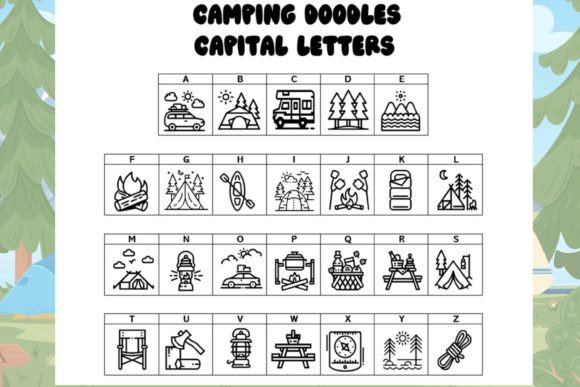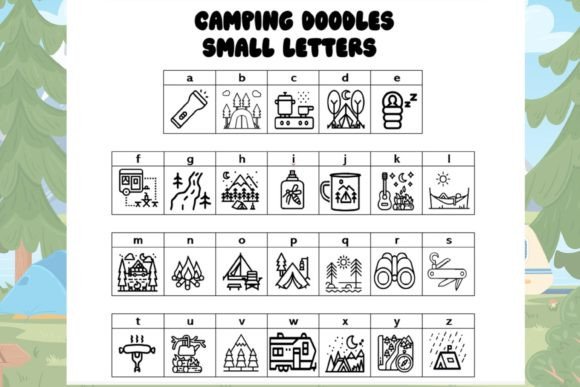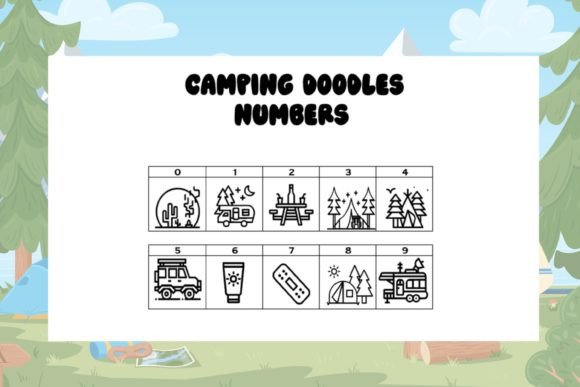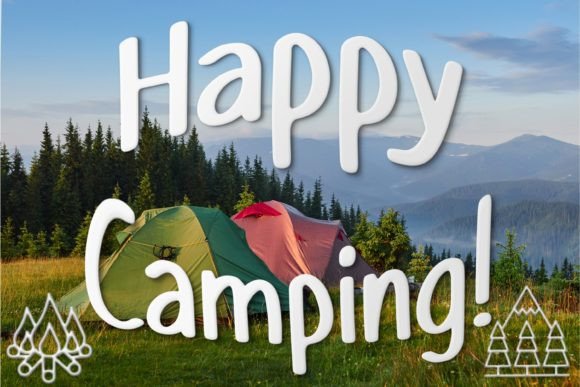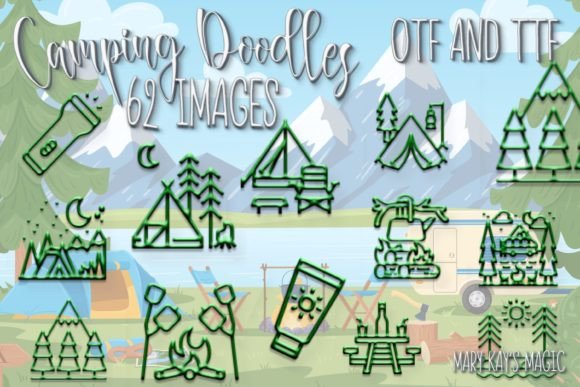
Camping Doodles Font: A Fun and Creative Way to Enhance Your Outdoor-Themed Projects
Are you an outdoor enthusiast looking for a unique and creative way to express your love for camping? Look no further than the Camping Doodles Font, a fun and entertaining dingbats font that covers most aspects of the camping experience. This font is perfect for designers, crafters, and anyone who loves the great outdoors.
What is the Camping Doodles Font?
The Camping Doodles Font is a collection of 62 images, including 26 capital letters, 26 small letters, and 10 numbers, each representing a different aspect of camping. From campers and trailers to trees and wildlife, this font has everything you need to create fun and engaging outdoor-themed projects.
Some of the images included in the font are:
• Camper and trailers
• Tents and campfires
• Wood chopping and lanterns
• Flashlights and sleeping bags
• Compasses and trees
• Mountains and desert landscapes
• Bug spray and sunscreen
• Camp chairs and picnic tables
• Marshmallows and campfire treats
• Sun and moon symbols
• Rain on a tent and a bandaid
How to Use the Camping Doodles Font
The Camping Doodles Font is incredibly versatile and can be used for a wide range of projects, including:
• Greeting cards and postcards
• Scrapbooks and photo albums
• Planners and journals
• Letters and compositions
• Social media posts and invitations
• Posters and flyers
Why Designers and Crafters Love the Camping Doodles Font
Designers and crafters love the Camping Doodles Font for several reasons:
• Unique and Fun Images: The font includes a wide range of fun and unique images that are perfect for outdoor-themed projects.
• Easily Customizable: The images can be easily recolored and edited to match your project’s color scheme and style.
• Versatile: The font can be used for a wide range of projects, from greeting cards to posters.
• Easy to Use: The font is easy to install and use, making it perfect for designers and crafters of all skill levels.
Tips and Inspiration for Using the Camping Doodles Font
Here are a few tips and inspiration ideas for using the Camping Doodles Font:
• Create a Camping-Themed Party Invitation: Use the font to create a fun and unique party invitation that sets the tone for a camping-themed party.
• Make a Customized Camping Journal: Use the font to create a customized camping journal that’s perfect for tracking your outdoor adventures.
• Design a Camping-Themed Greeting Card: Use the font to create a fun and unique greeting card that’s perfect for outdoor enthusiasts.
With the Camping Doodles Font, the possibilities are endless. Whether you’re a designer, crafter, or outdoor enthusiast, this font is sure to inspire you to create fun and engaging outdoor-themed projects.
The Camping Doodles Font is a fun and creative way to enhance your outdoor-themed projects. With its unique and customizable images, this font is perfect for designers, crafters, and outdoor enthusiasts alike. Whether you’re creating a greeting card, poster, or social media post, the Camping Doodles Font is sure to add a touch of fun and personality to your project.